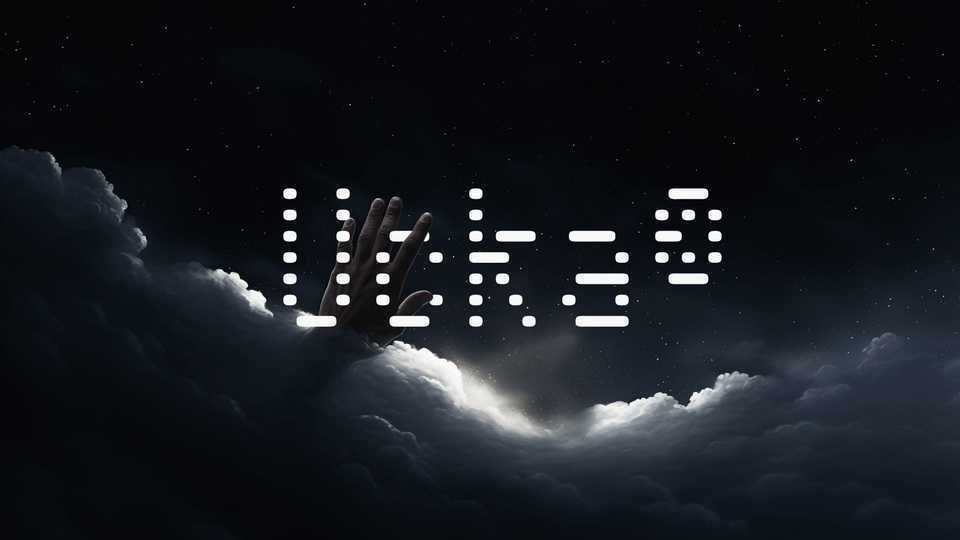
Download Ucka font, a monospaced display typeface inspired by retro computer displays and dot matrix printers. Each character is meticulously crafted from a grid of dots, creating a unique, digital-inspired look.